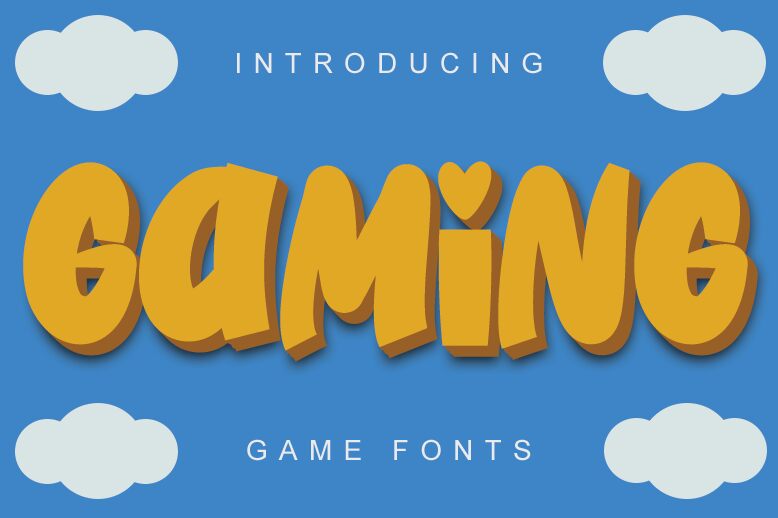
Gaming font by falahfont248 is a cartoon display font that will make all your designs exquisitely beautiful and remarkably memorable. This free readymade tool with retro-inspired elements is attractive and impressive, allowing you to capture your reader’s attention easily. It has deep dark colors for optimal contrast along with unique design elements for an obvious youthful aesthetic.
A great choice at hand-drawn projects, headlines, posters, outstanding covers and business cards. It works for labels and other packaging designs that require catchy typography; it is appealing in ads as well. Other uses include t-shirts, logotypes, store banners by the door side on window displays among others.